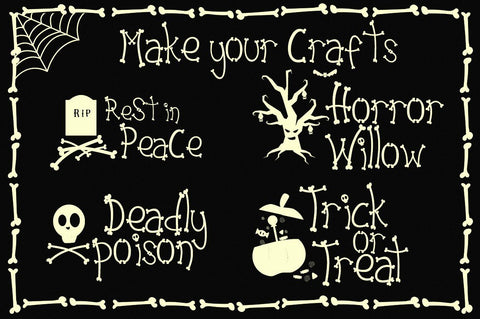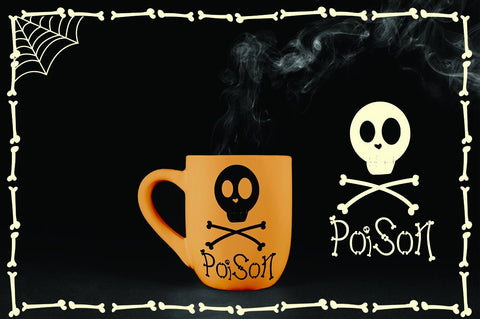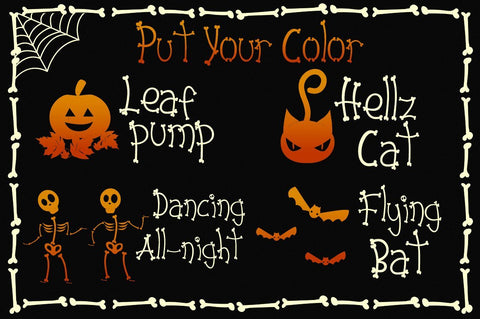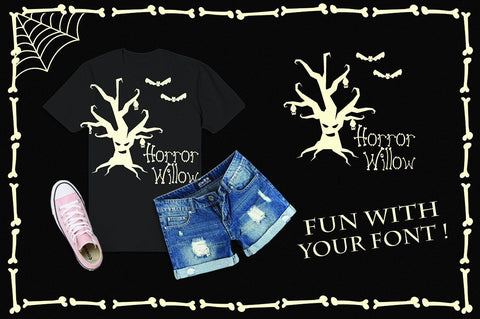
Skelie Dancie - Bone Font
Skelie Dancie - or Dancing Skeletons is a bone look a like font, made special for your Halloween Projects! Simply type and have fun with the glyphs to your design, we have added 10 decorative halloween cliparts, just type 0-9 and voila! We have make it easy and simple to use in any software!
Skelie Dancie features :
• Standard Characters from A-Z ( Uppercase & Lowercase )
• Basic symbols
• Numerals (alternative numerals)
• 10 Decorative Halloween theme clipart ( 0-9 )